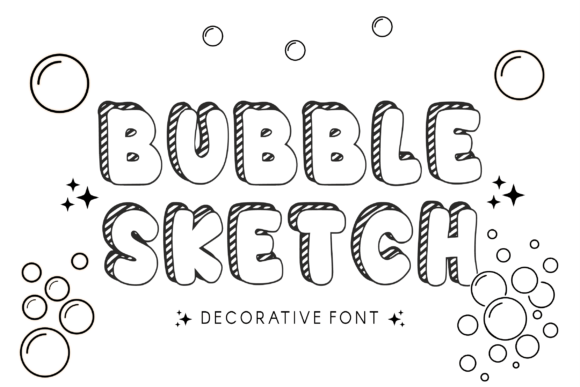
Unleashing Creativity with the Bubble Sketch Font
Have you ever found yourself sitting in front of a blank canvas, staring at a blank piece of paper, waiting for inspiration to strike? You know that moment when the ideas start flowing, and your creativity takes over? That’s exactly what happens when you work with the Bubble Sketch Font.
This contemporary font is designed to bring out the best in your designs, with each character carefully crafted to add a unique sparkle to your work. Whether you’re creating sublimation prints for t-shirts, designing eye-catching mugs, or bringing a comic title to life, the Bubble Sketch Font is the perfect tool for the job.
As a designer, you know how valuable a versatile font like the Bubble Sketch Font can be. It’s a canvas waiting to be filled with your imagination, and its unique charm is sure to make your designs stand out from the crowd.
Bubble Sketch Font Key Features
- Font Style: A playful, hand-drawn font with rounded edges and a bubbly texture, ideal for creating a whimsical and childlike atmosphere.
- Unique Characteristics: The Bubble Sketch Font features a unique, hand-drawn style with subtle texture and imperfections, giving it a personal and human touch.
Bubble Sketch Font Review
As a designer, I was excited to dive into the world of Bubble Sketch Font, a modern and playful font designed for digital art and creative projects. Here’s my honest take on this font.
- Unique and quirky aesthetic: Bubble Sketch Font brings a fresh touch to any design project, perfect for those who want to stand out from the crowd.
- Perfect for hand-drawn and digital art: The font’s organic feel makes it ideal for illustrations, typography, and graphics that require a personal touch.
- Great for creative projects: Whether you’re designing a logo, poster, or social media graphics, Bubble Sketch Font adds a playful and eye-catching element to your work.
- Limited legibility: The font’s playful nature can make it difficult to read, especially in large blocks of text.
- Not suitable for formal or professional projects: The font’s quirky feel may not be suitable for projects that require a more serious or formal tone.
Overall, I think Bubble Sketch Font is a great addition to any designer’s toolkit. While it may have some limitations, its unique aesthetic and versatility make it perfect for creative projects that require a personal touch. If you’re looking to add some playfulness to your designs, Bubble Sketch Font is definitely worth checking out.
The Bubble Sketch Font is commonly used in:
- Children’s books and educational materials.
- Party invitations and event materials.
- Illustrative blog posts and social media graphics.